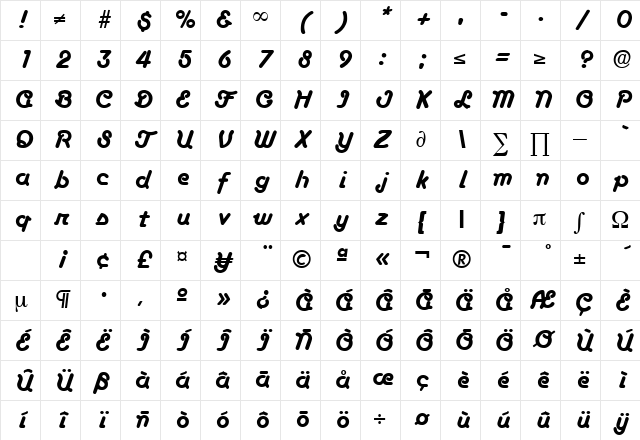
Complete Boascript DB Medium glyph index. Displaying only characters natively supported by Boascript DB Medium font.
Boascript DB flows with the natural rhythm of handwritten lettering, making it ideal for designs that call for warmth and personal expression.
Font Pairing: Combine Boascript DB with a simple geometric sans for maximum contrast - the tension between flowing curves and clean structure is a classic typographic pairing.
Pro Tip: Use Boascript DB for short runs of text - names, titles, or taglines. Extended body copy in script faces tires the eye quickly.